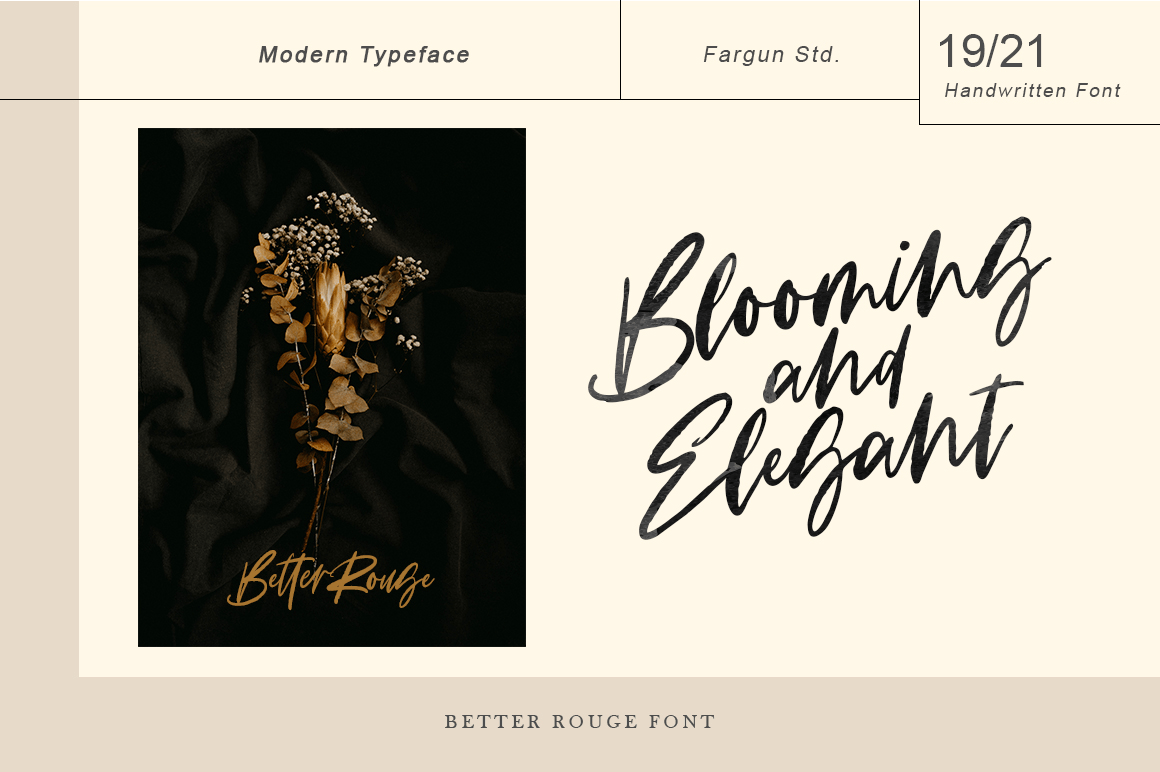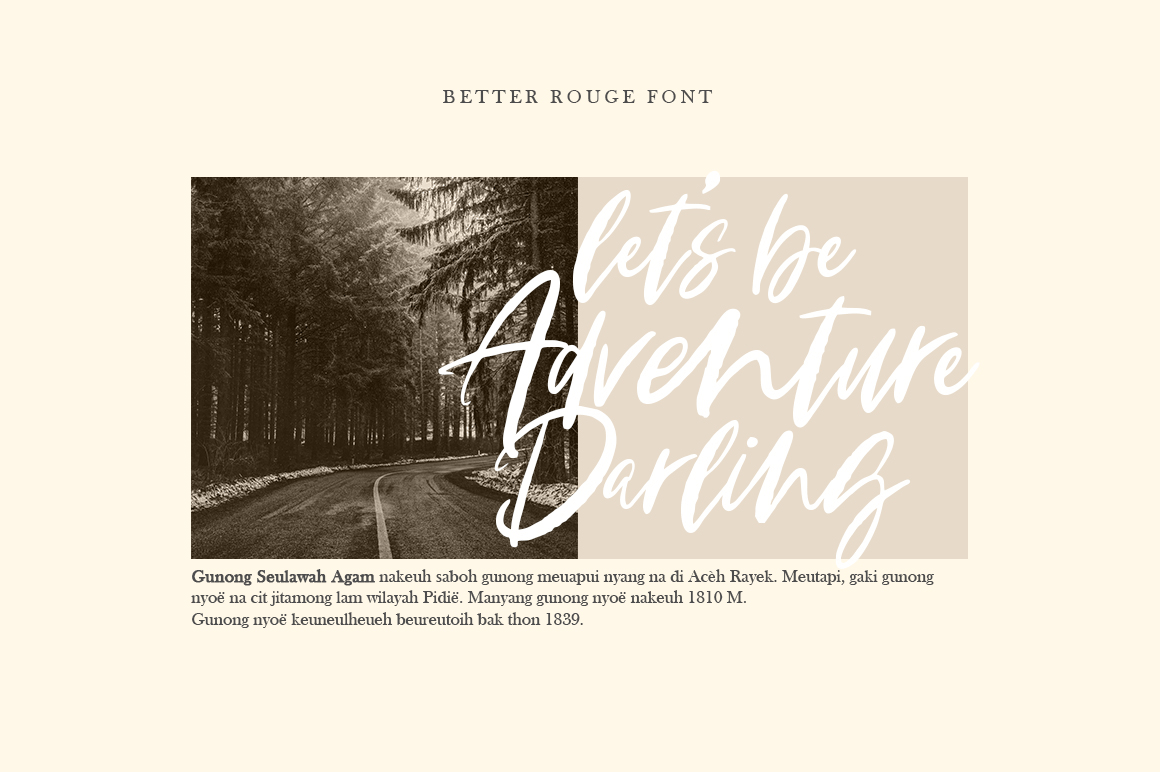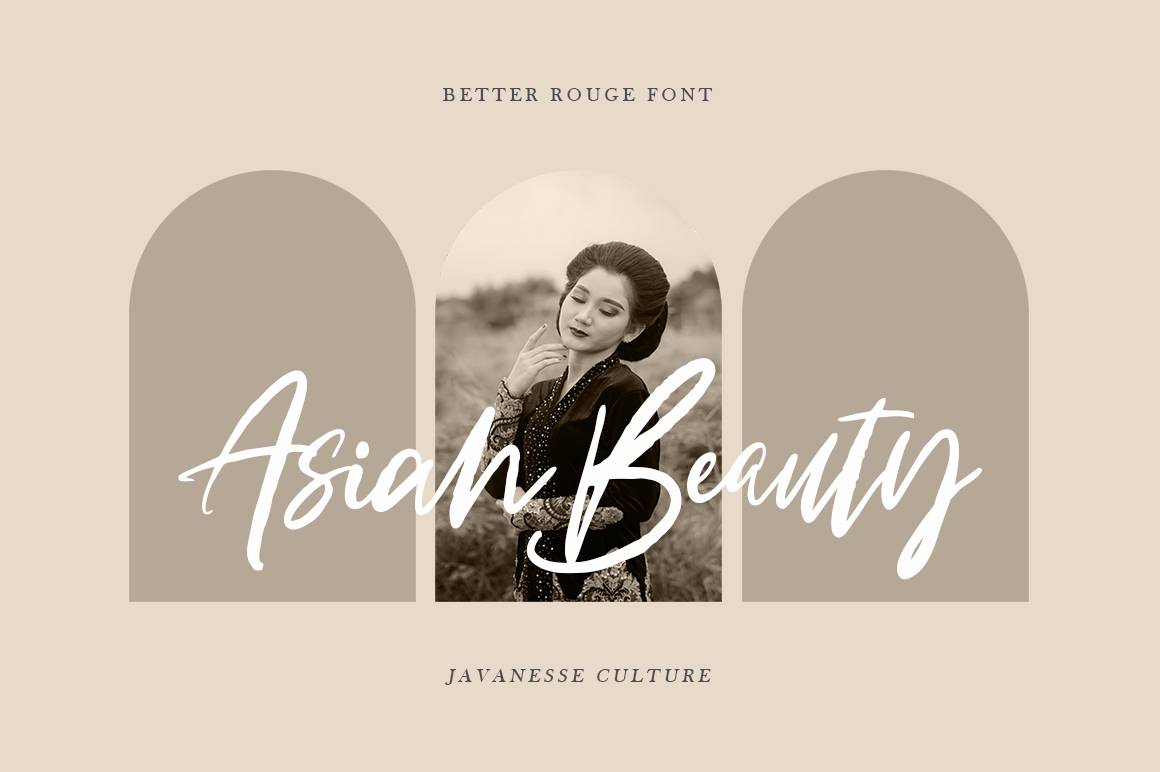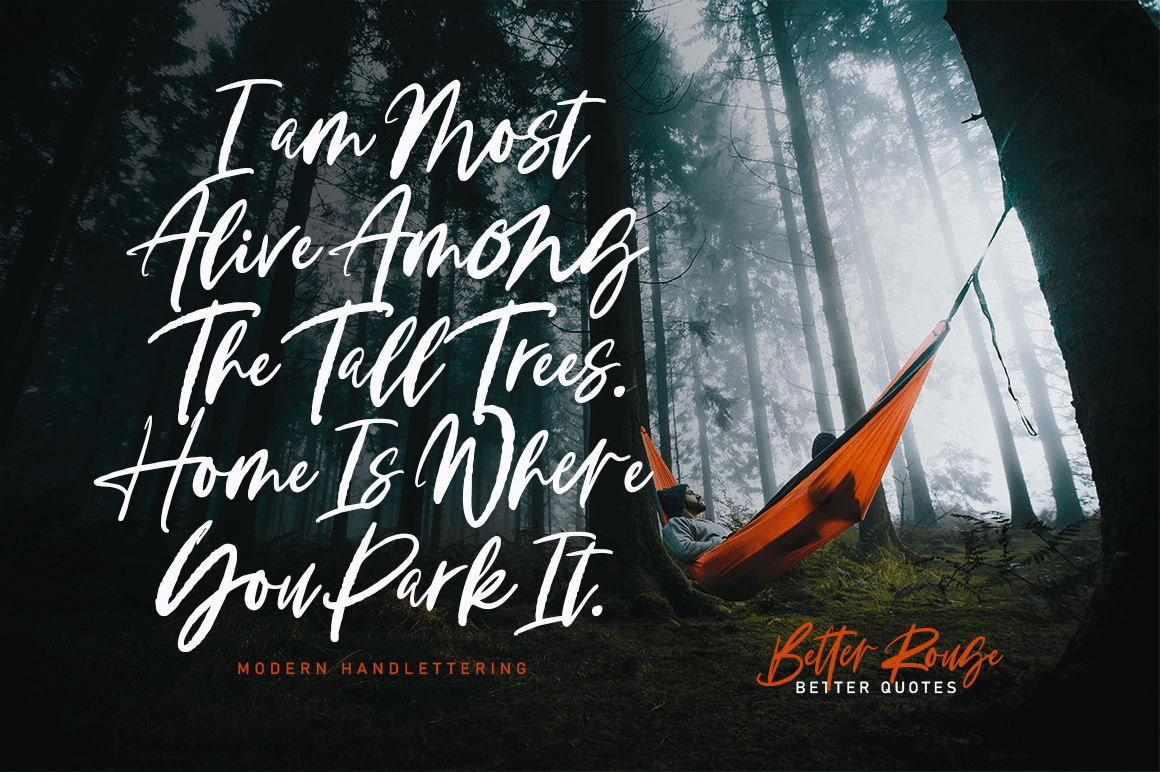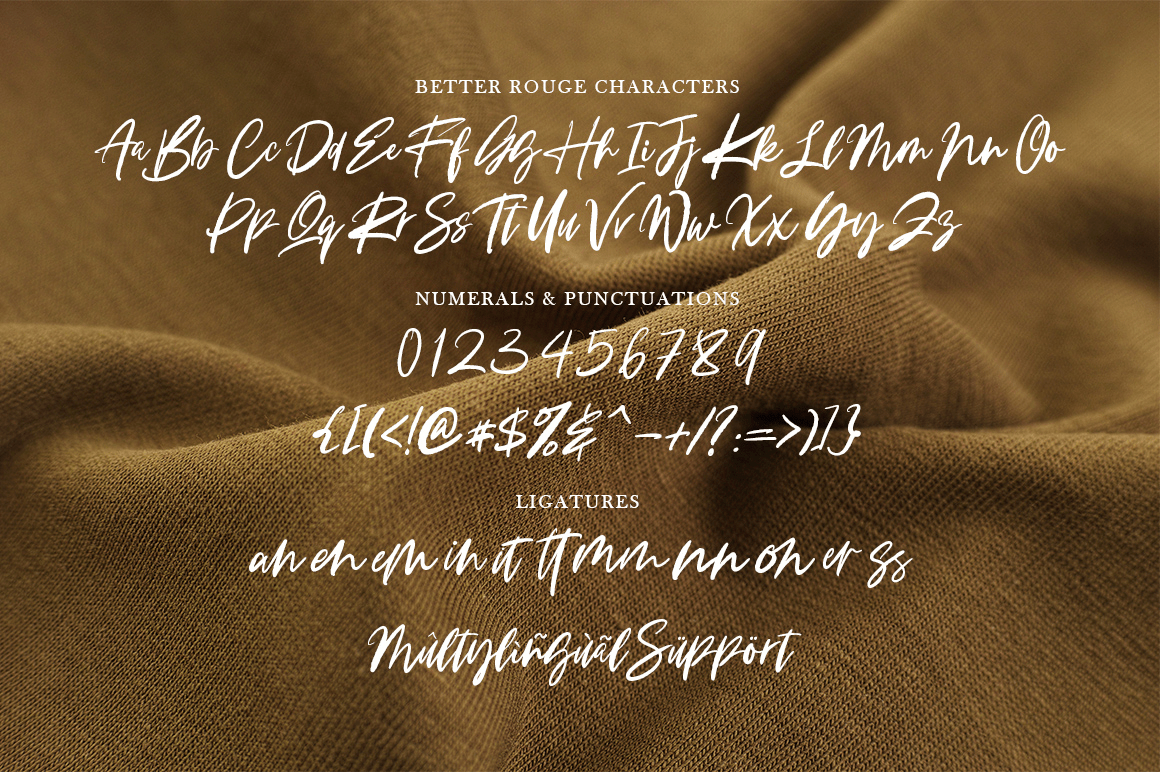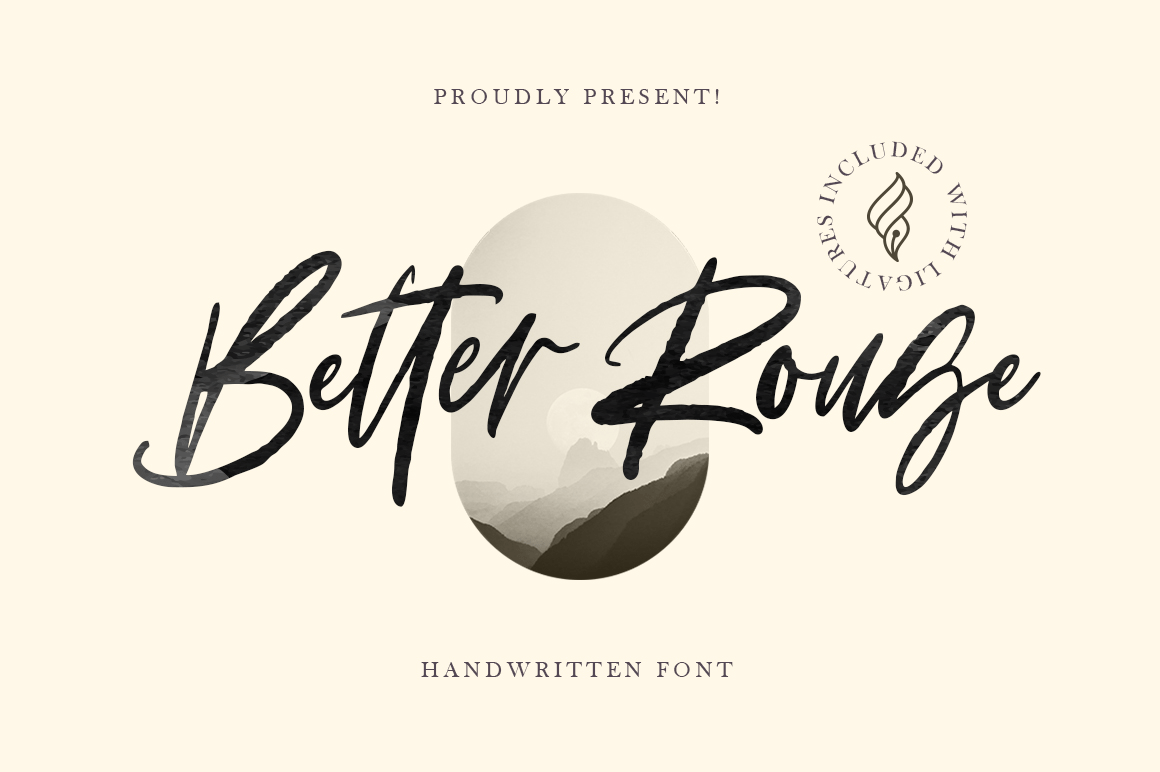
Better Rouge
About Better Rouge
Better Rouge is handwritten stylish copperplate calligraphy fonts, combines from copperplate to contemporary typeface with a dancing baseline, classic and elegant touch. Can be used for various purposes. such as headings, signature, logos, wedding invitation,…